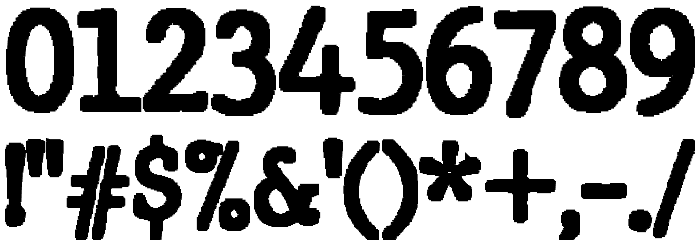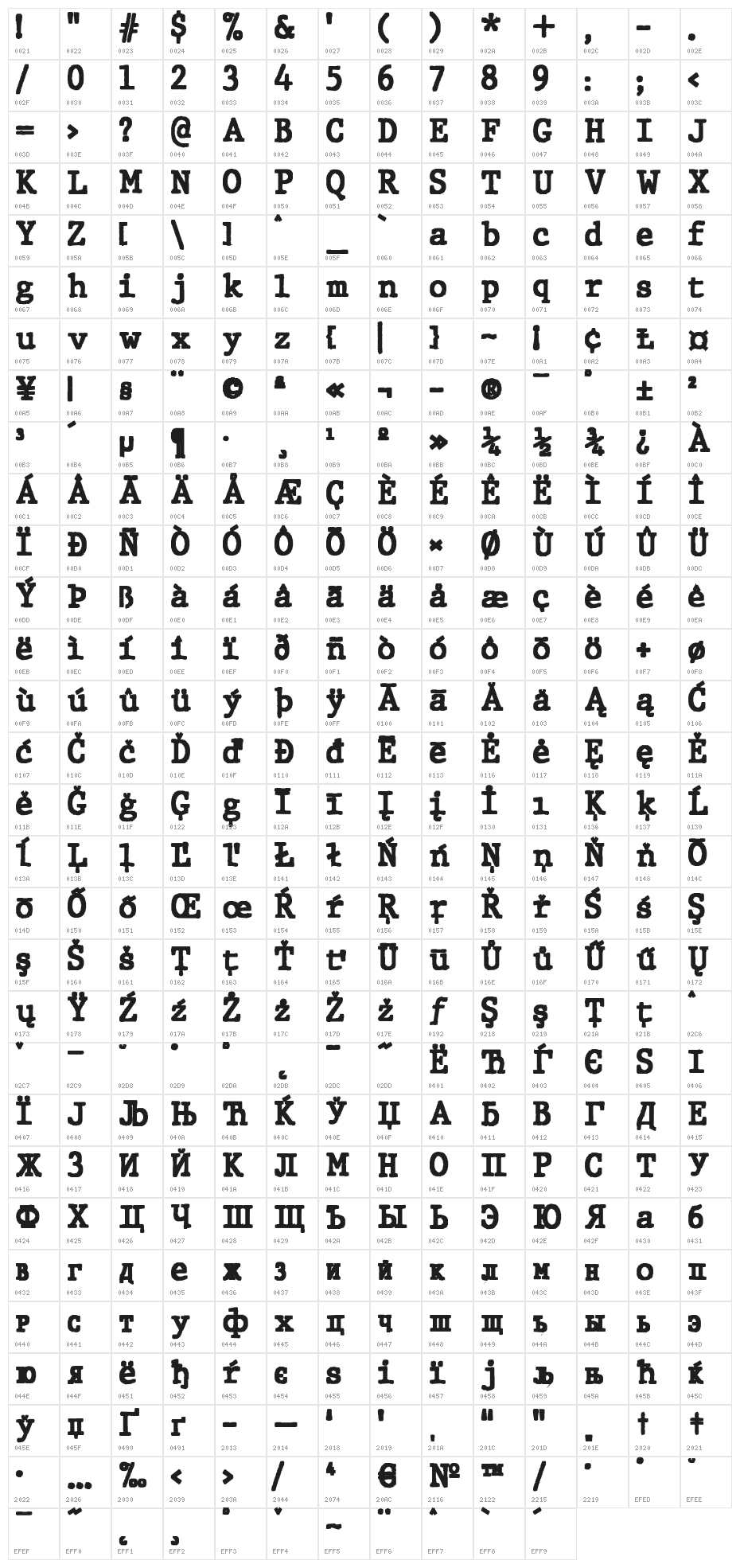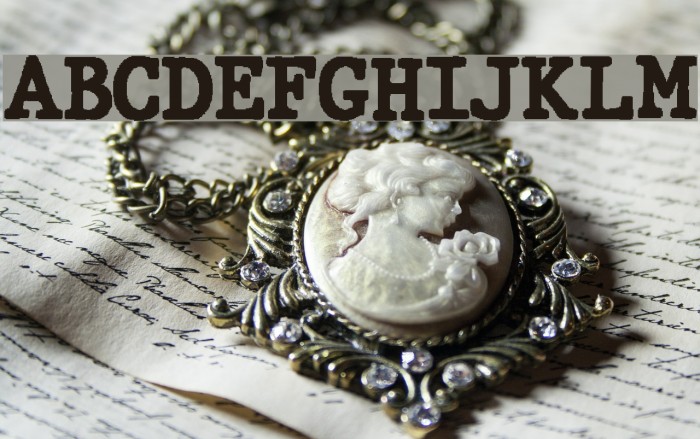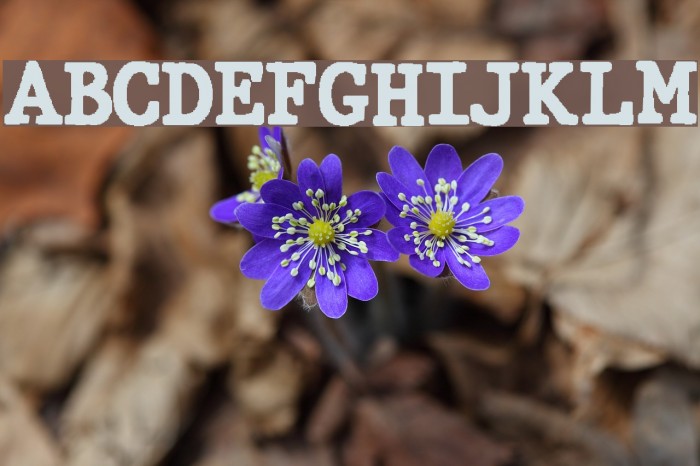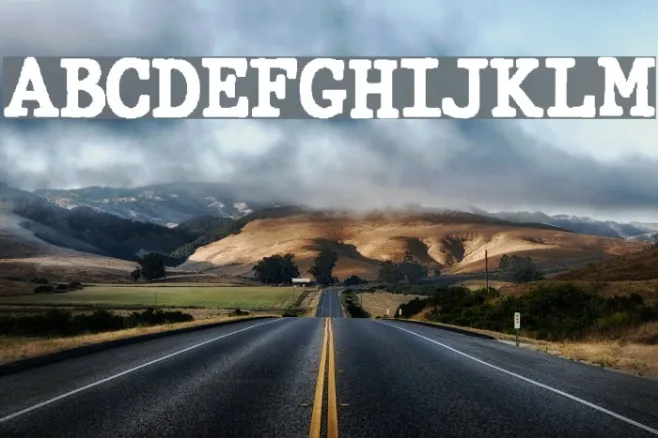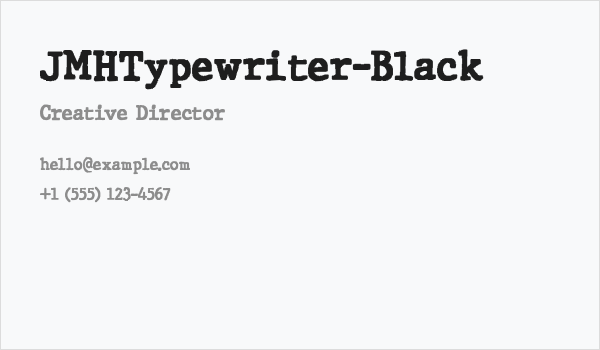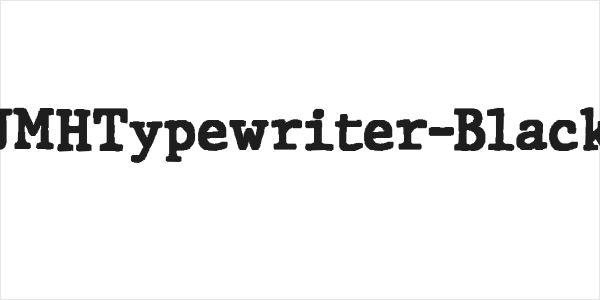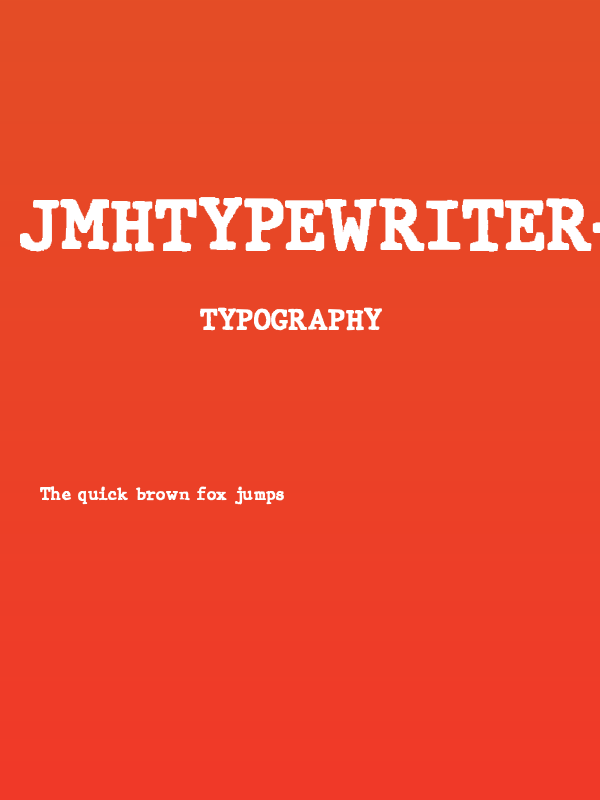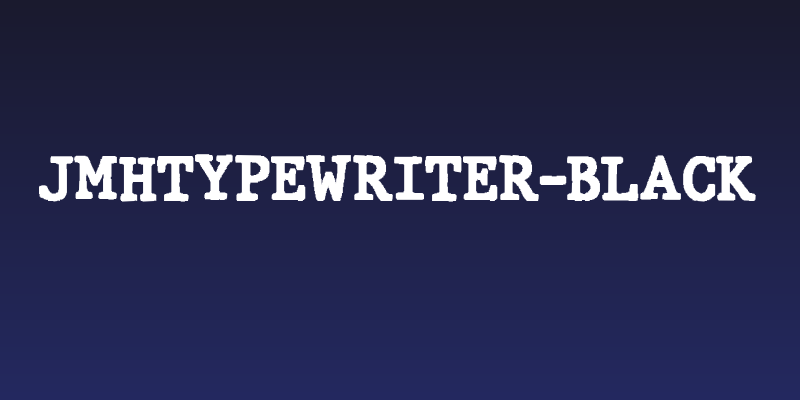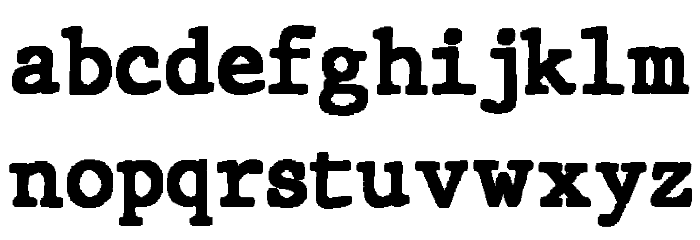
JMHTypewriter-Black Font
JMHTypewriter-Black Description
This font exudes a classic typewriter aesthetic with a bold and robust presence. Each character is crafted with a distinct slab serif style, giving it a vintage and mechanical feel. The uppercase and lowercase letters maintain a consistent weight, providing a uniform appearance across the board. Numbers and special characters are equally bold, ensuring readability and emphasis. The font's design is reminiscent of old-school typewriters, making it ideal for projects that require a touch of nostalgia or a retro vibe. Its strong, thick strokes and slightly rounded edges contribute to its legibility and charm, making it suitable for both display and body text.
| Proposed Projects | Ideal for retro-themed designs, typewriter art, vintage posters, and branding that requires a classic touch. |